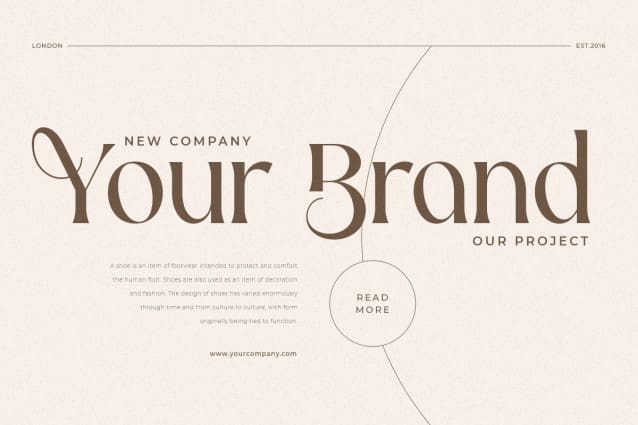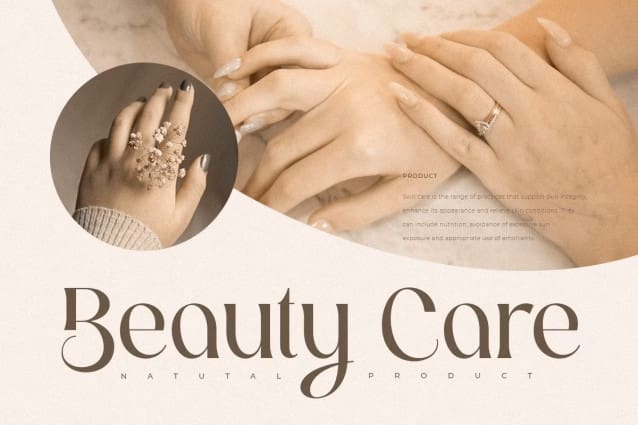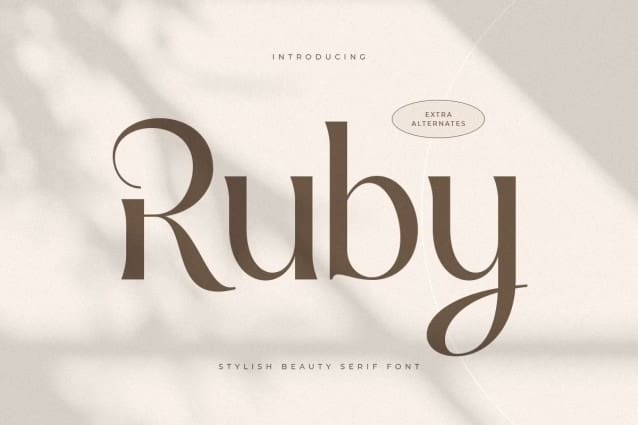
Ruby Font
Ruby Font a Stylish Beauty Serif Font that we created special for unique luxury modern and royal classy needs, with unique shape will be ready to add value of your brand. It so nice to leverage designer or product owner that need solutions to make their design look more Luxury and royal classy. And specially for Ruby font, We prepared any alternate Characters to help you create unlimited variations for your creative needs.